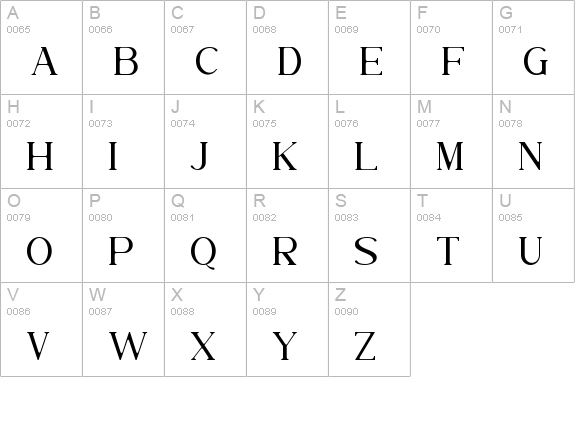
Royal Kevino - Serif Font Font Details
Royal Kevino is a sophisticated serif font that exudes elegance and regality. With its clean lines and classic design, this font is perfect for adding a touch of luxury to your projects. The tall ascenders and descenders give it a sense of grandeur, making it ideal for headings, invitations, and other formal designs.